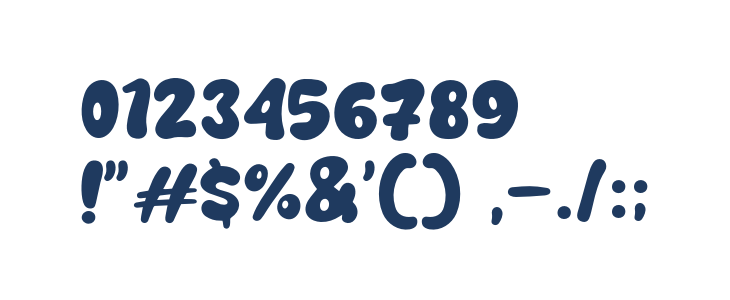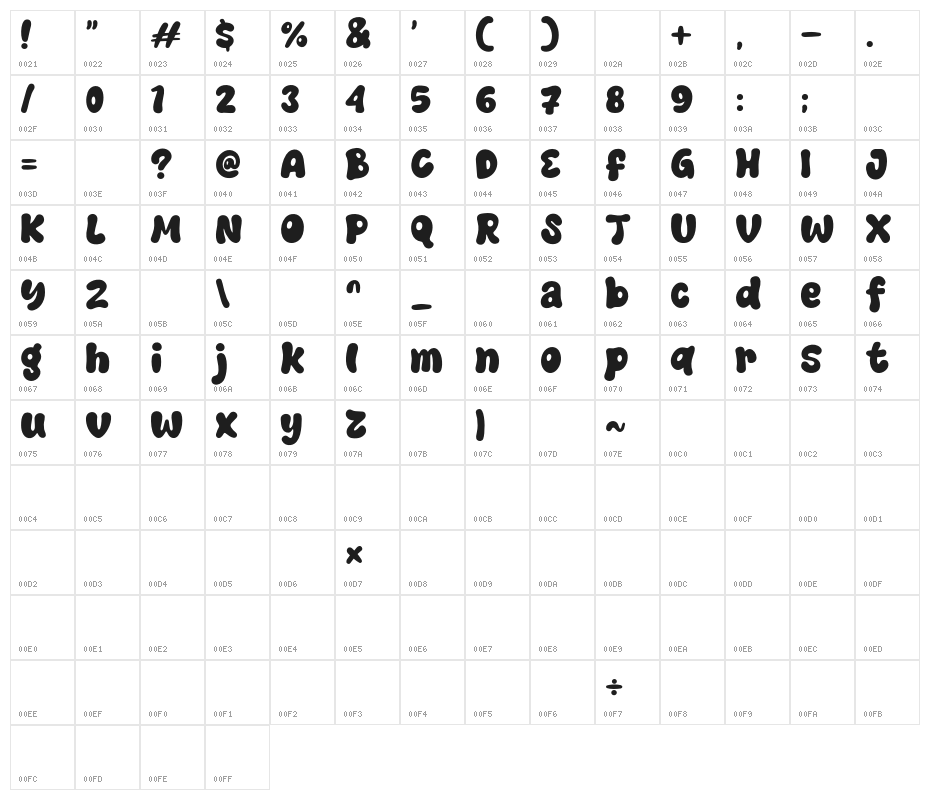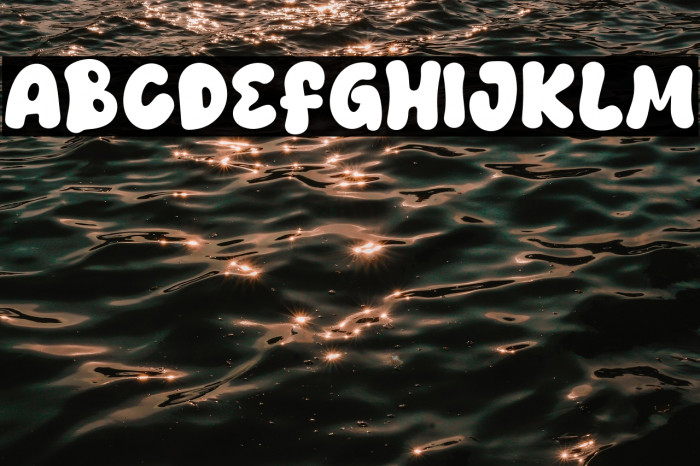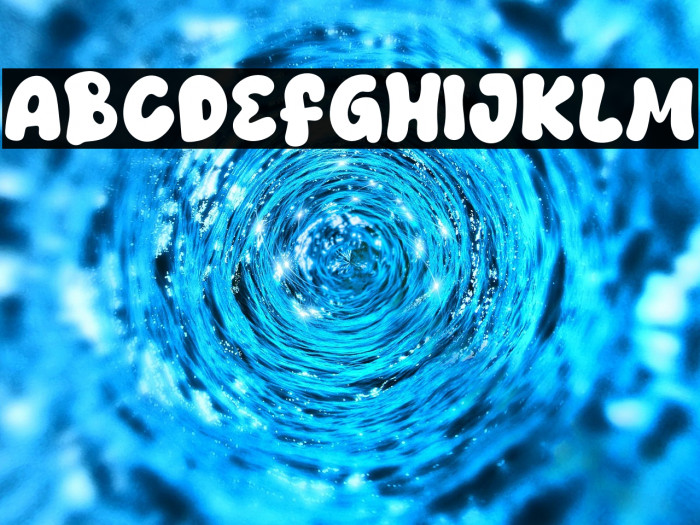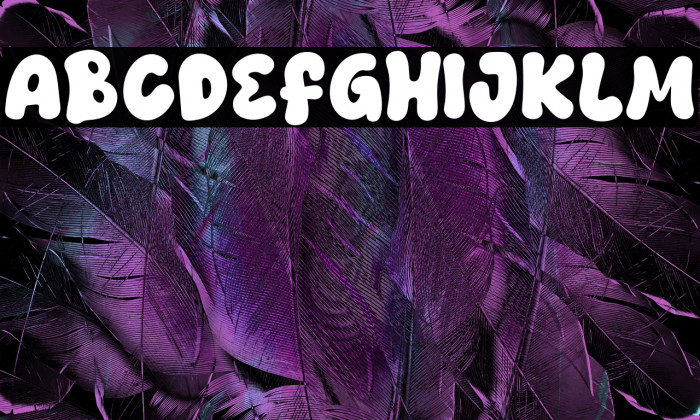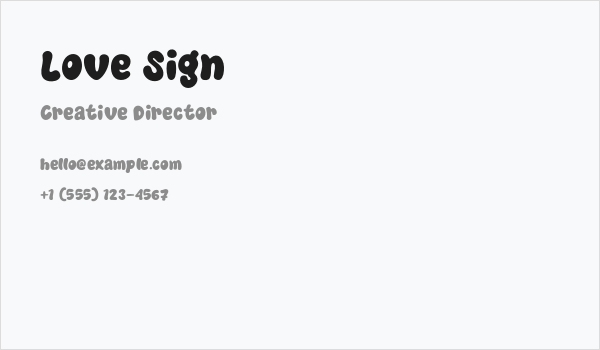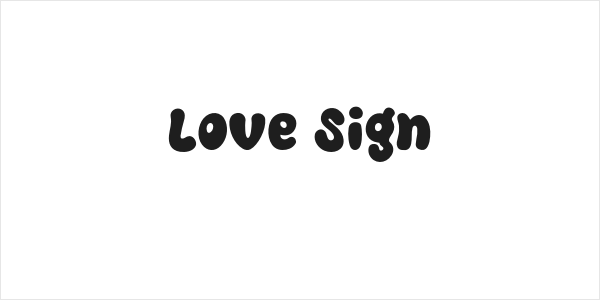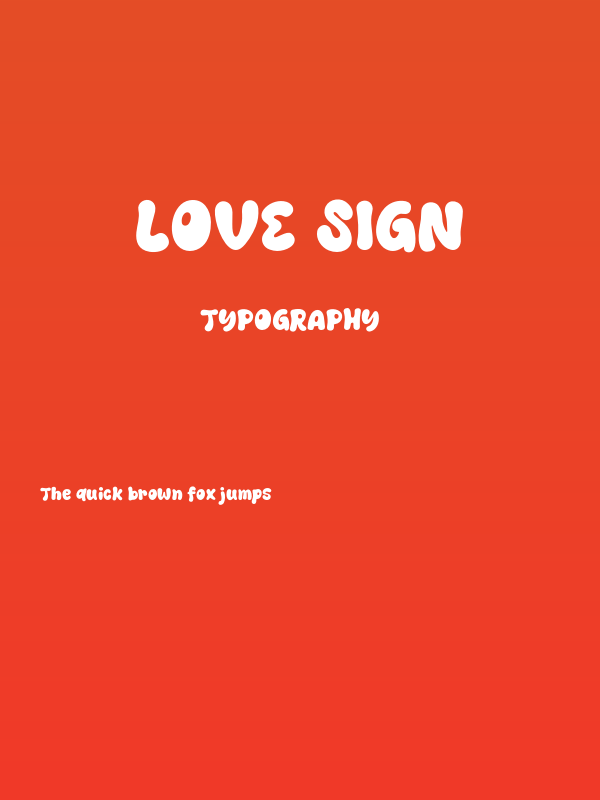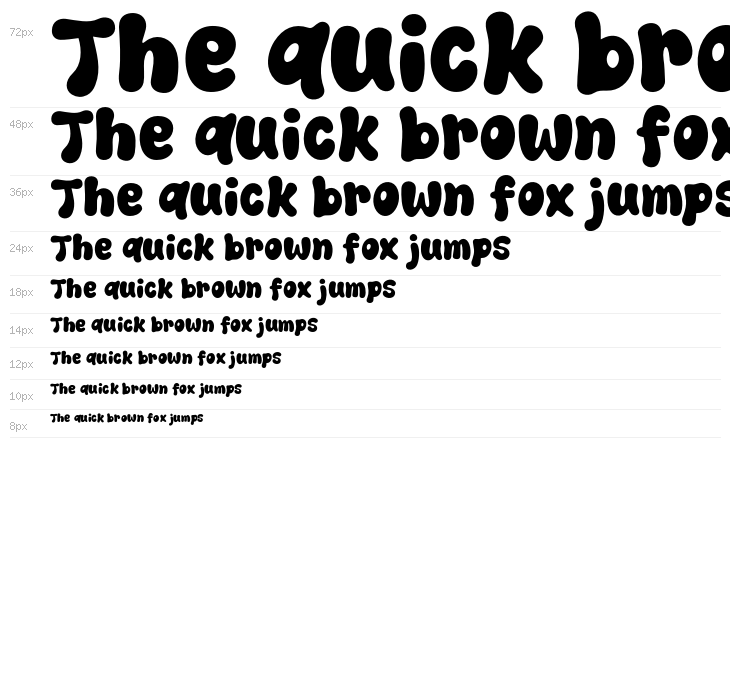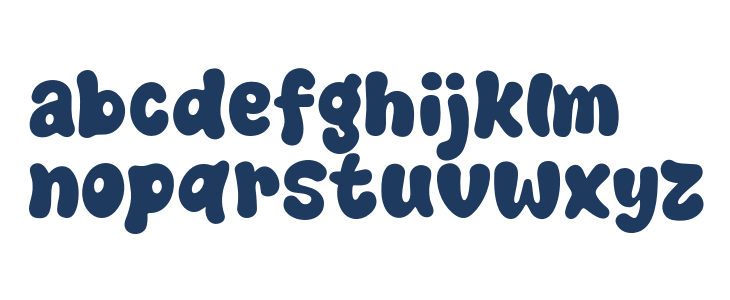
Love Sign Font
Love Sign Description
This playful and bold font features rounded, bubbly characters that exude a sense of fun and whimsy. The letters are thick and have a consistent weight throughout, giving them a strong presence on the page. The rounded edges and lack of sharp angles contribute to a friendly and approachable aesthetic. This font is particularly eye-catching and is designed to stand out, making it ideal for creative and informal applications. The numbers and special characters maintain the same playful style, ensuring a cohesive look across all text elements.
| Overall Style | Playful, Fun |
| Proposed Projects | Ideal for children's books, playful branding, party invitations, and any project needing a fun, informal touch. |